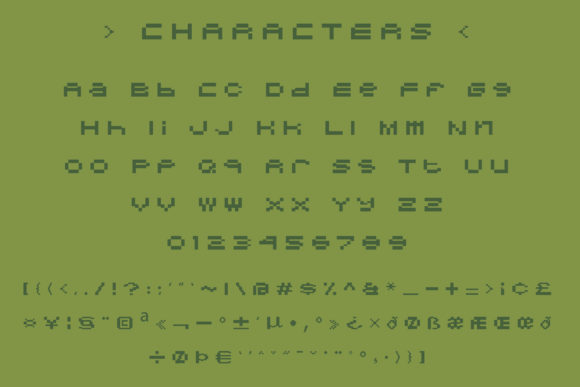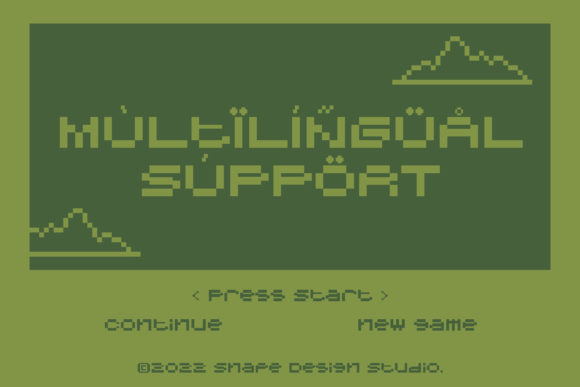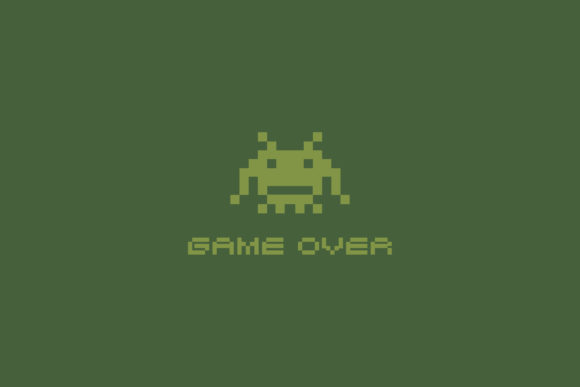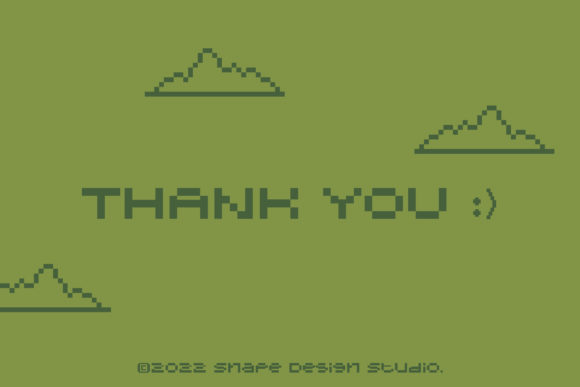
Unlock the Retro Charm of Your Designs
You’re hunched over your desk, surrounded by sketchpads, pencils, and a faint glow of your computer screen. The ideas are flowing, but something’s missing – a spark to set your project ablaze. That’s when you stumble upon the perfect font: Bit Game Font. Its retro pixel style instantly transports you back to the nostalgic world of classic video games.
Bit Game Font is more than just a font – it’s a design element that can elevate your projects to the next level. Whether you’re working on a game, movie, or documentary, this font is the perfect addition to your creative arsenal. Its versatility and unique style make it a valuable asset for designers looking to stand out in a crowded market.
Bit Game Font Key Features
- Font Family: Bit Game Font is a monospaced sans-serif font designed specifically for coding and gaming applications.
- Character Set: Includes a wide range of characters, including ASCII, Unicode, and special characters, making it suitable for various programming languages and gaming needs.
- Resolution: Designed for high-resolution displays, with a clear and readable font at resolutions up to 4K (3840 x 2160 pixels).
- Size: Available in various font sizes, from 8 to 24 points, making it adaptable to different coding and gaming environments.
- Unique Characteristics: Bit Game Font features a distinctive pixelated design, making it a popular choice among gamers and coders who prefer a nostalgic aesthetic.
Bit Game Font Review
Overall, Bit Game Font is a solid choice for a retro-style font. ✨ One of its biggest strengths is its versatility. It comes in various weights and styles, making it easy to use in a range of applications, from video games to websites.
Another advantage is its excellent legibility, even at small font sizes. The font is well-designed to accommodate low-resolution displays, which is a huge plus for developers looking to create a retro aesthetic.
- Some of the characters may not be immediately recognizable to modern users, which could lead to confusion.
- The font may not be as polished as some other options, which could impact its overall professionalism.
Overall, Bit Game Font is a great choice for projects that require a retro aesthetic. While it may not be perfect, its strengths far outweigh its limitations, making it a solid addition to any designer’s toolkit.
Bit Game Font is ideal for:
- Video game graphics and UI design.
- Retro-style posters and advertisements.
- Pixel art and digital art projects.
For optimal results, use the Bit Game Font with a pixel-perfect grid and adjust the font size and color to fit your design.